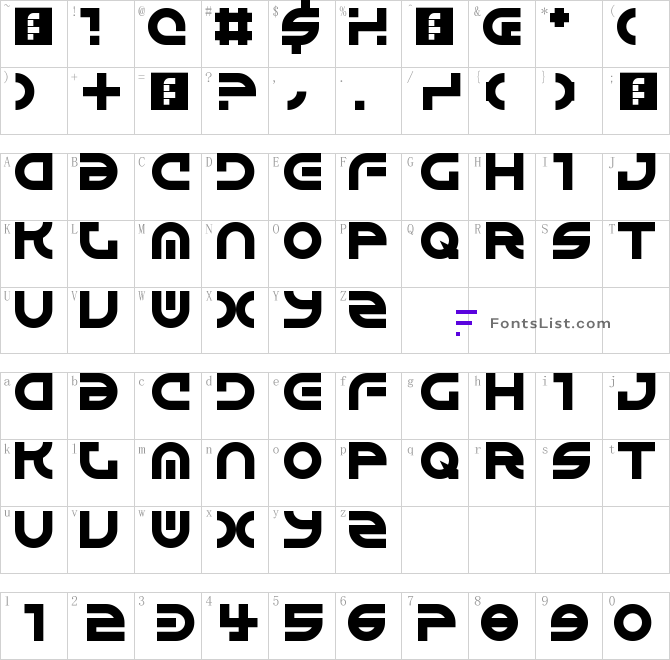
- Font Name:Alienated
Alienated-Regular.ttf is a very beautiful artistic font, Alienated-Regular.ttf is widely used in the design and printing of various books and pictures,Alienated-Regular.ttf has a strong visual impact,Alienated-Regular.ttf is a commonly used font in newspapers, magazines and books, and is used in posters, e-commerce Poster design, store design, logo design, font design and other fields.Alienated-Regular.